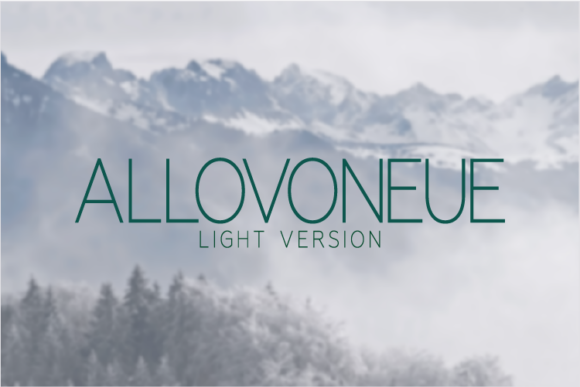
Allovoneue Light Font
Journey into the realm of digital aesthetics with Allovoneue Light Font, a sans-serif masterpiece meticulously crafted by the visionary minds of Huntype. Immerse yourself in a world of precision and modernity, where sharp edges dance harmoniously with geometric letterforms. Embark on a typographic adventure where creativity knows no bounds.
Unleash the power of Allovoneue Light Font, a geometric sans-serif typeface that exudes sophistication and elegance. Its clean lines and minimalist aesthetic bring a touch of contemporary flair to your digital creations. With its striking presence, Allovoneue Light Font commands attention, leaving an unforgettable impression on your audience.
Step into a world of infinite possibilities with Allovoneue Light Font. Its versatility knows no limits, effortlessly adapting to a myriad of design applications. From the dynamic energy of magazine layouts to the bold statements of posters, Allovoneue Light Font effortlessly enhances your visual communication. Discover the transformative power of typography as Allovoneue Light Font elevates your designs to new heights of excellence.
Experience the allure of Allovoneue Light Font, a typographic masterpiece that captivates and engages. Its sharp edges and minimal stroke contrast evoke a sense of modernity and innovation, propelling your designs to the forefront of contemporary aesthetics. Embrace the allure of Allovoneue Light Font and let your creativity soar.